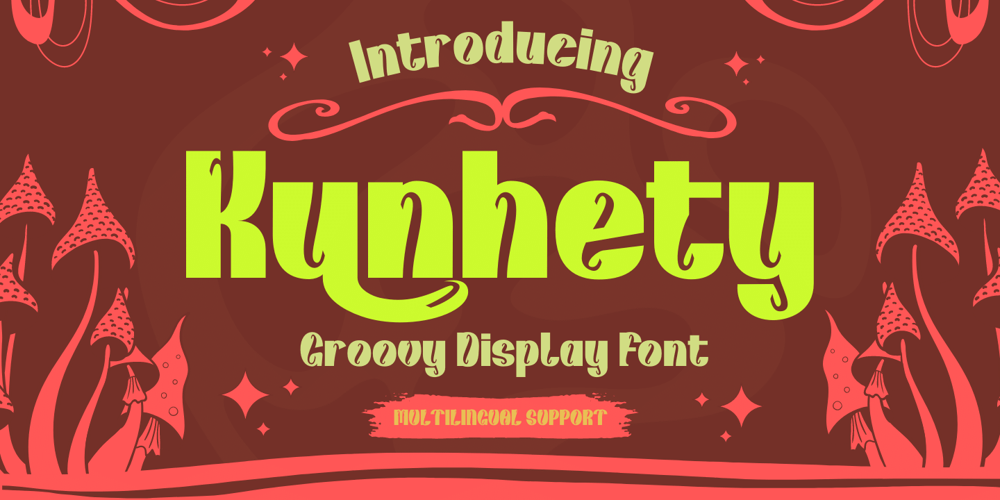
Kunhety Font Family was designed by Rozikan and published by Twinletter. Kunhety contains 1 styles and family package options. Introducing Kunhety, a groovy retro font display perfect for bringing a vintage touch to your designs. This font features bold and quirky letters that will make your projects stand out and evoke a feeling of nostalgia. Whether you’re working on a poster, or an album cover, or want to add some retro vibes to your latest project, Kunhety is the perfect font for you. With a range of alternative characters and multilingual support, this font is versatile and ready to add some groovy flavor to your work. Don’t miss out on the opportunity to elevate your designs with Kunhety.Furthermore, Kunhety is user-friendly and easy to use. Making it compatible with a wide range of software and devices. And with its clear and distinct letterforms, it’s sure to grab the attention of your audience and leave a lasting impression. So, add a touch of retro cool to your next project with Kunhety today!What’s Included :- File font- All glyphs Iso Latin 1- Alternate, Ligature- Simple installations- We highly recommend using a program that supports OpenType features and Glyphs panels like many Adobe apps and Corel Draw so that you can see and access all Glyph variations.- PUA Encoded Characters – Fully accessible without additional design software.- Fonts include Multilingual support